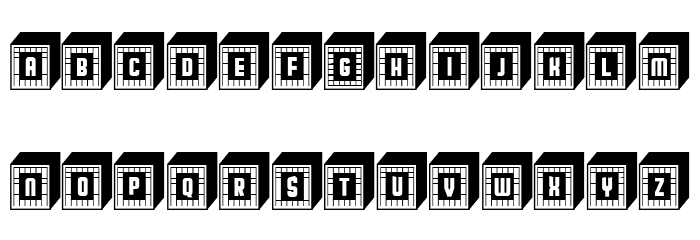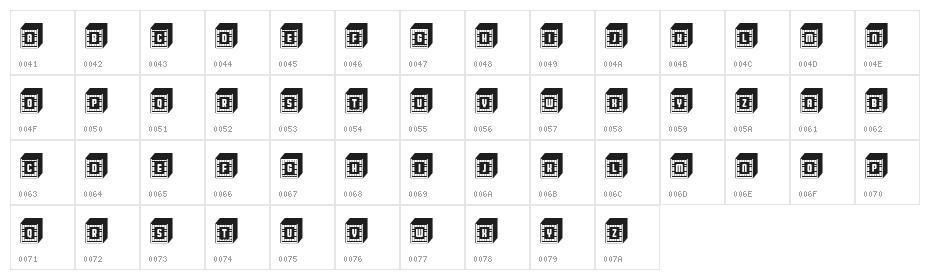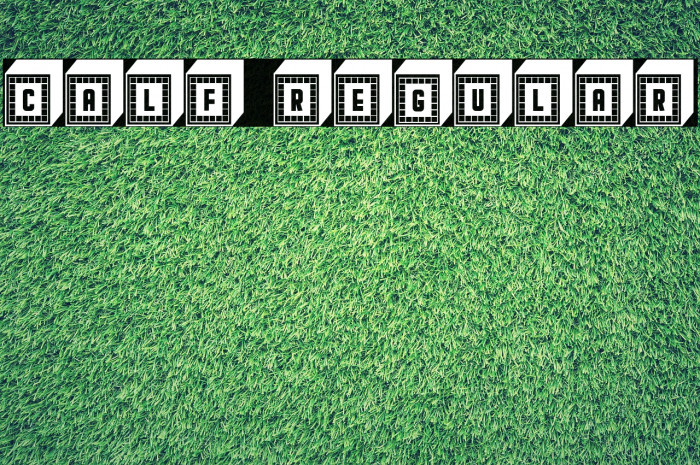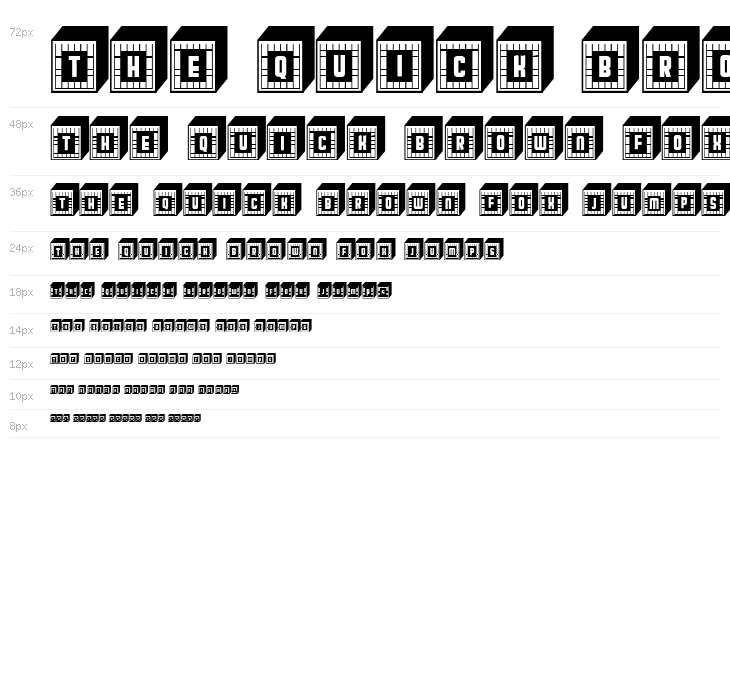
Calf Regular Font
Calf Regular Description
This font features a unique design where each letter is encapsulated within a box that resembles a three-dimensional block. The letters themselves are bold and sans-serif, with a modern and geometric aesthetic. The use of shadowing gives the impression of depth, making the characters appear as if they are raised from the surface. This style is particularly eye-catching and would stand out in any design project. The uniformity of the blocks ensures a consistent and structured appearance, while the boldness of the letters ensures readability even at smaller sizes.
Proposed ProjectsIdeal for posters, logos, and any design requiring a modern, standout typeface.